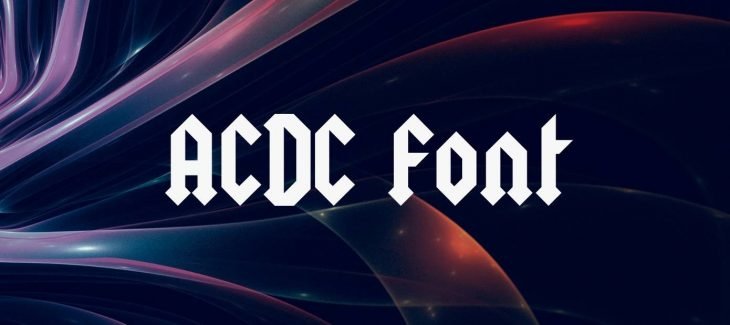
AC/DC Font is a popular sans-serif typeface that was designed in the early 1990s by Swiss typeface designer Adrian Frutiger. The font is named after the rock band AC/DC, whose logo is very similar to the acdc Font.
This Font has a unique style that makes it stand out from other sans-serif fonts. The font is very thin and has a large x-height, which makes it easy to read. This Font also has a very wide range of weights, from light to black.
This Font is used by many companies and organizations, including the U.S. military, NASA, and the Red Cross. The font is also very popular with graphic designers and web designers.
If you’re looking for a unique, stylish, and easy-to-read sans-serif font, then AC/DC Font is the perfect choice for you.
Who Used AC/DC Font?
If you’re looking for a free font similar to AC/DC Font, then you should check out Liberation Sans. Liberation Sans is a free sans-serif typeface that was designed to be similar to Frutiger’s famous typeface. The font is available in a wide range of weights and styles, making it a versatile choice for any project.
AC/DC Font Family Appearance
| Name | AC/DC Font |
| Designer | Adrian Frutiger |
| Style | Sans Serif |
What font does AC DC use for their logo?
The AC/DC logo is very similar to the Shatter Font, which is a popular sans-serif typeface.
What is the AC DC font logo?
The AC/DC logo is a popular sans-serif typeface that was designed in the early 1990s by Swiss typeface designer Adrian Frutiger.